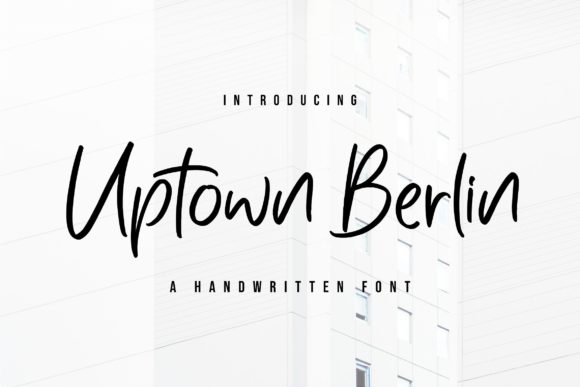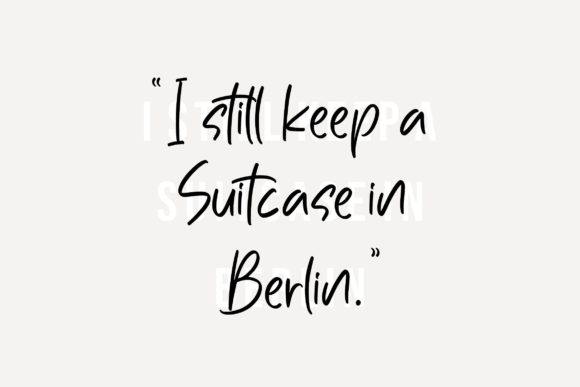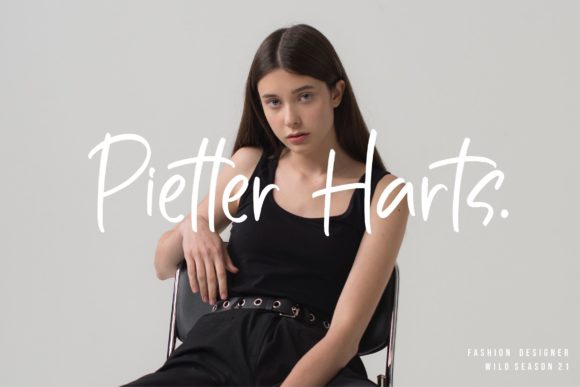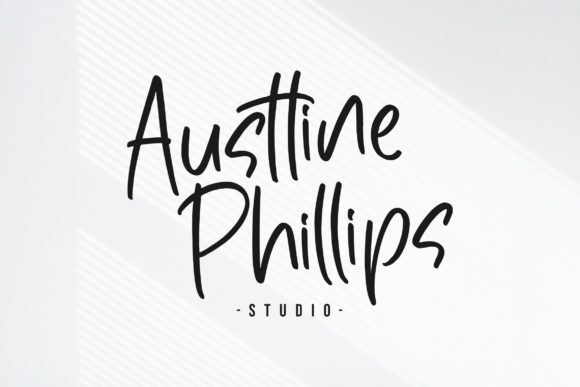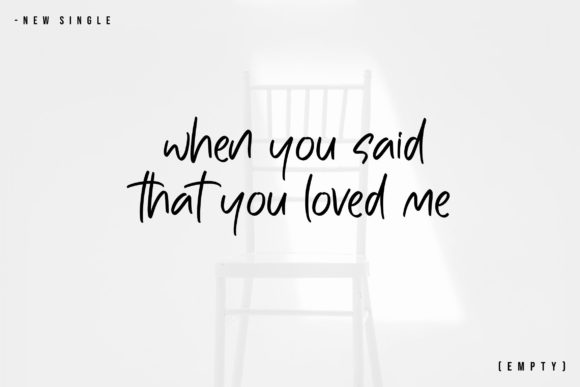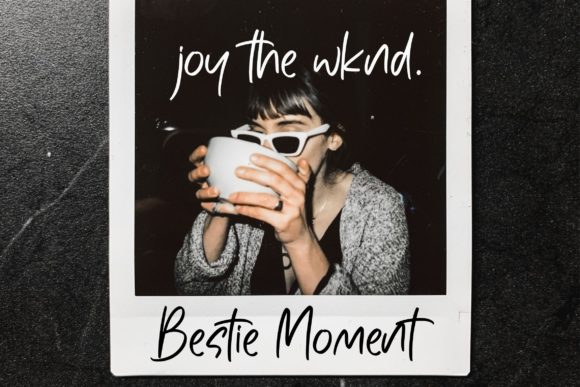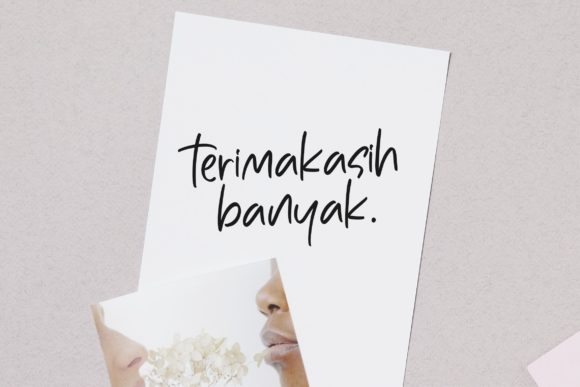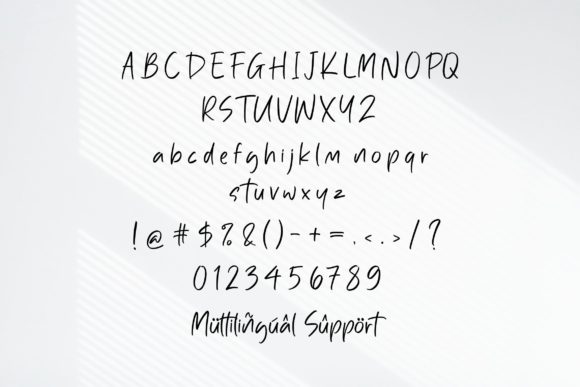
Uptown Berlin Font
Uptown Berlin is a lovely and delicate script font that exudes elegance and class. This font was particularly crafted for those who need a beautiful and refreshing look to their designs.